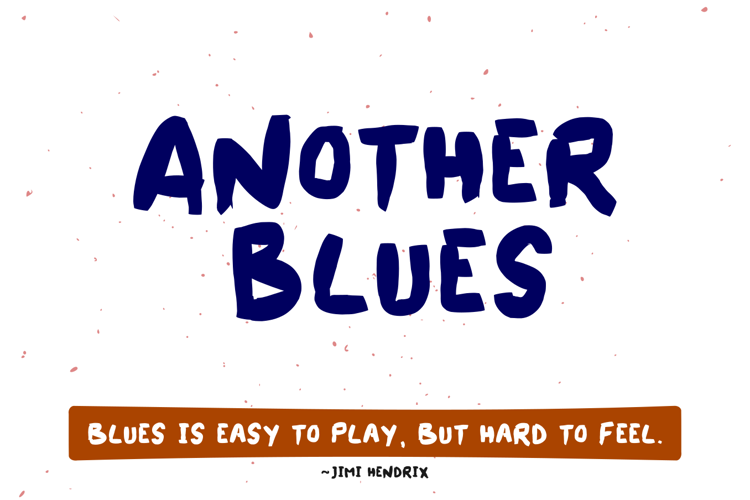
Another Blues Font
About Another Blues Font
Another Blues is a cool and simple rough display font. It will look great on any poster, flyer, or print. Use this font for your designs and explore its endless possibilities.